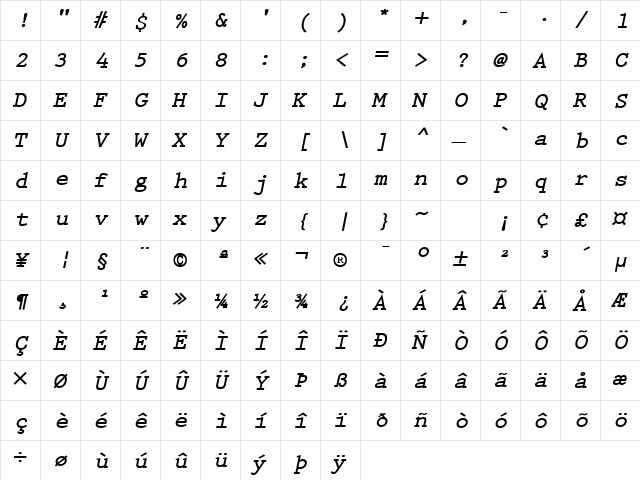
Prestige Elite Bold-Oblique
Design Context for Prestige Elite Typeface
Prestige Elite offers clean, dependable letterforms without strong stylistic allegiance, making it a practical choice for designers who need flexibility. Its italic angle brings a sense of urgency and motion to the letterforms. The heavy weight commands attention and anchors typographic hierarchies.
Pro Tip: Use Prestige Elite for emphasis, pull quotes, and subheadings where its slanted energy can add rhythm to the layout.